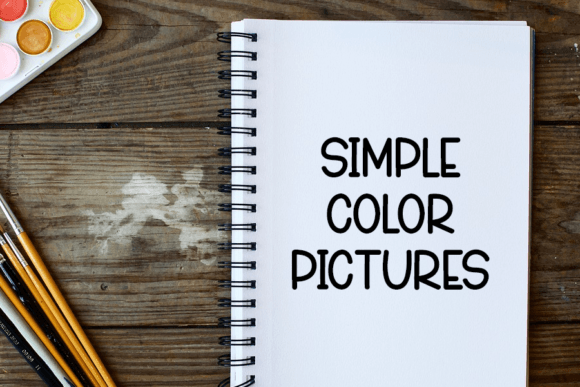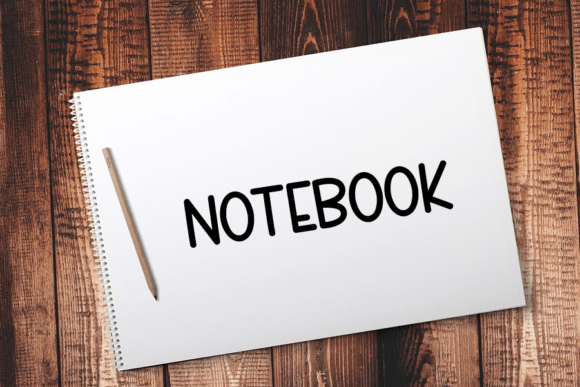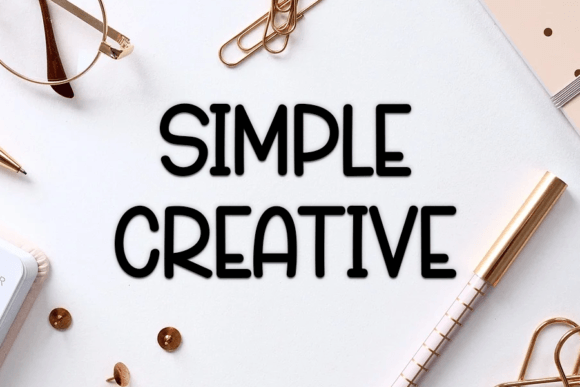
Homework Font Font
Digital Paper is a cool and modern handwritten display font. Whether you’re using it for crafts, digital design, presentations, or making greeting cards, this font has the potential to become your favorite go-to font, no matter the occasion!